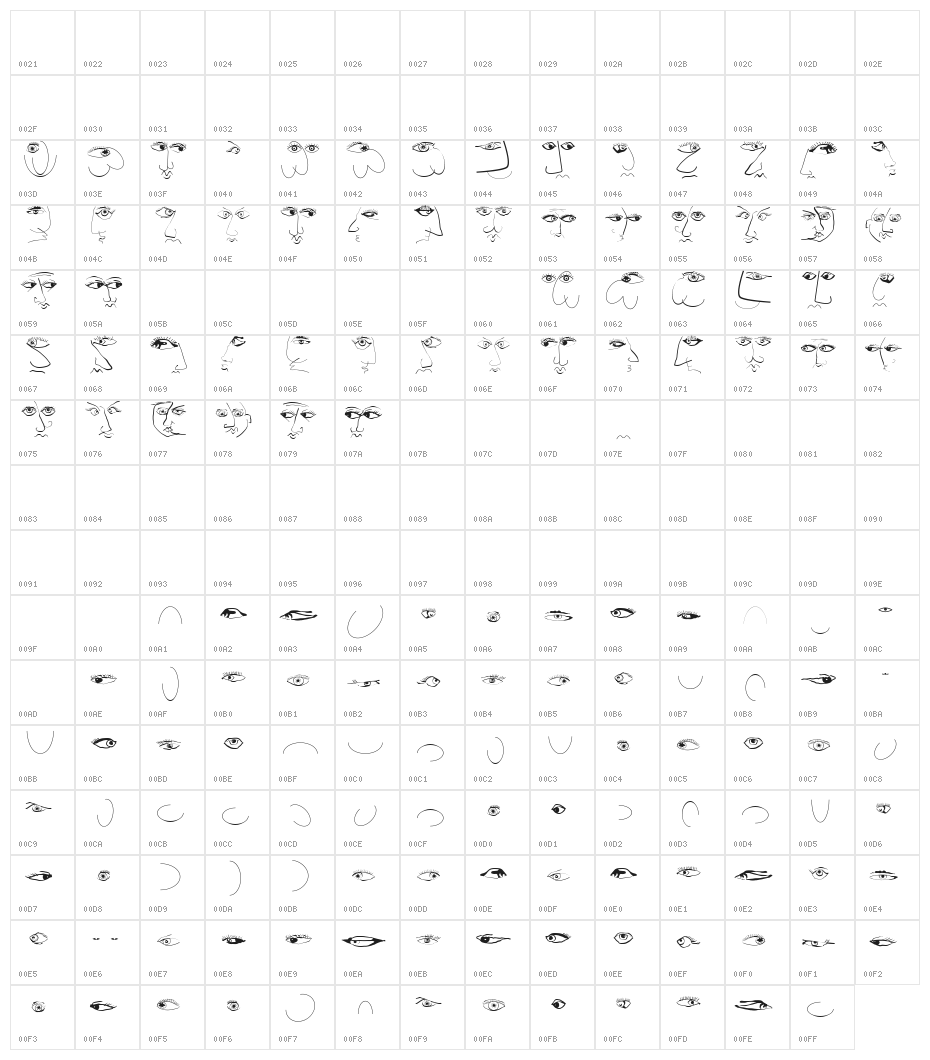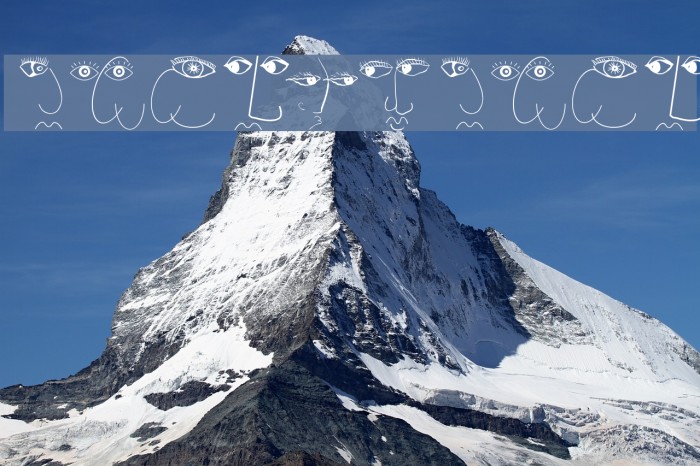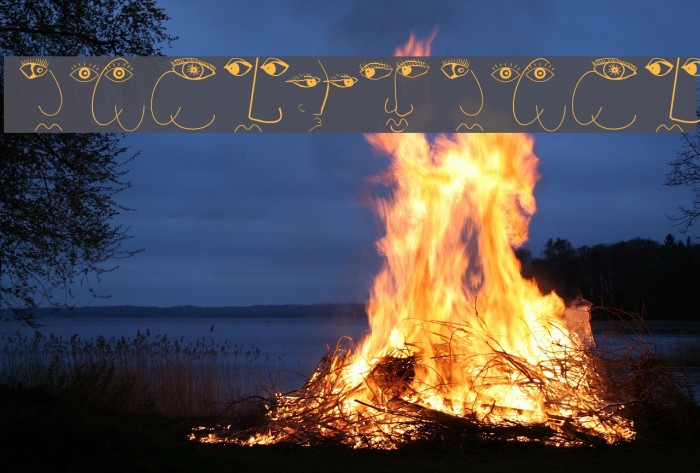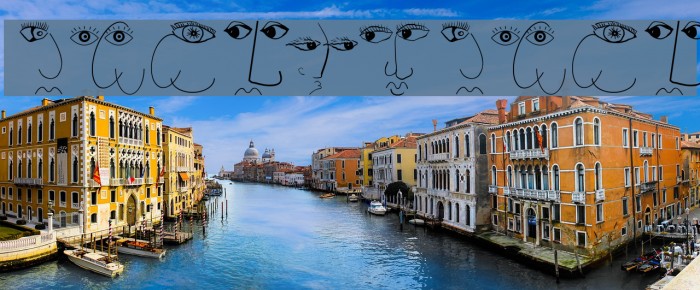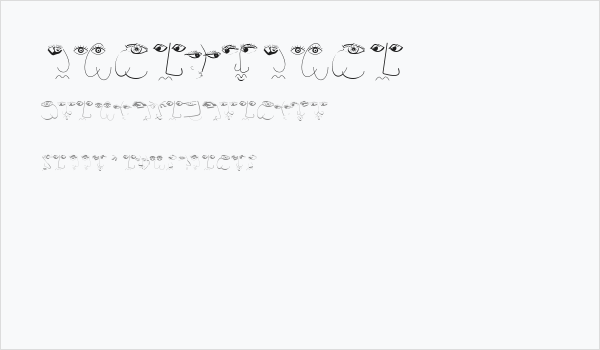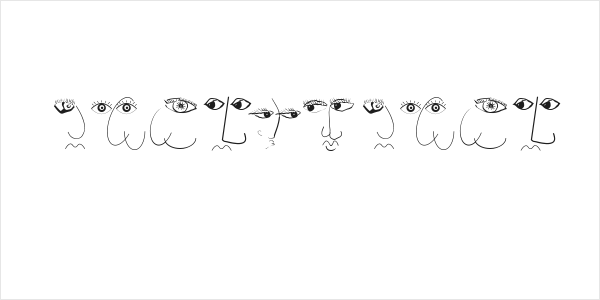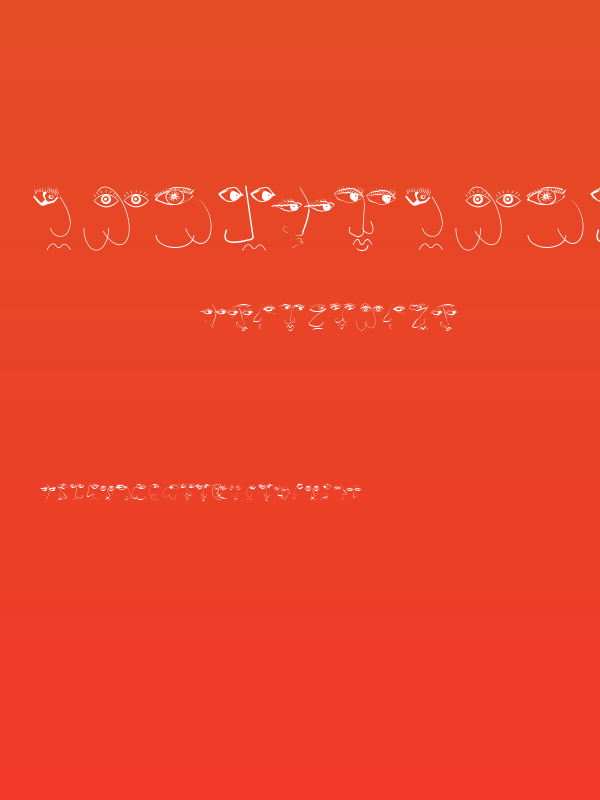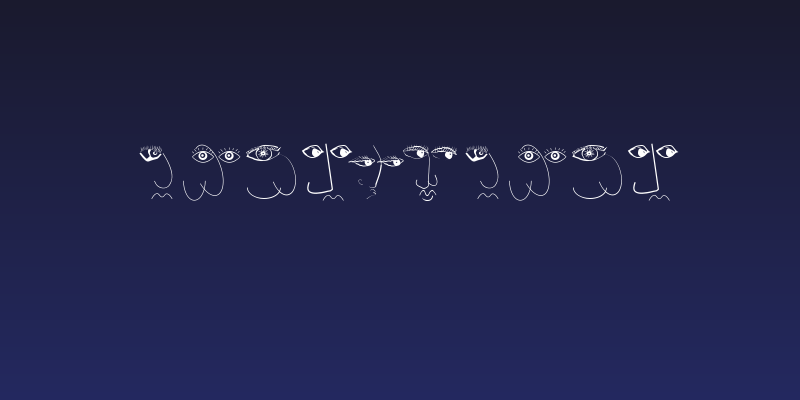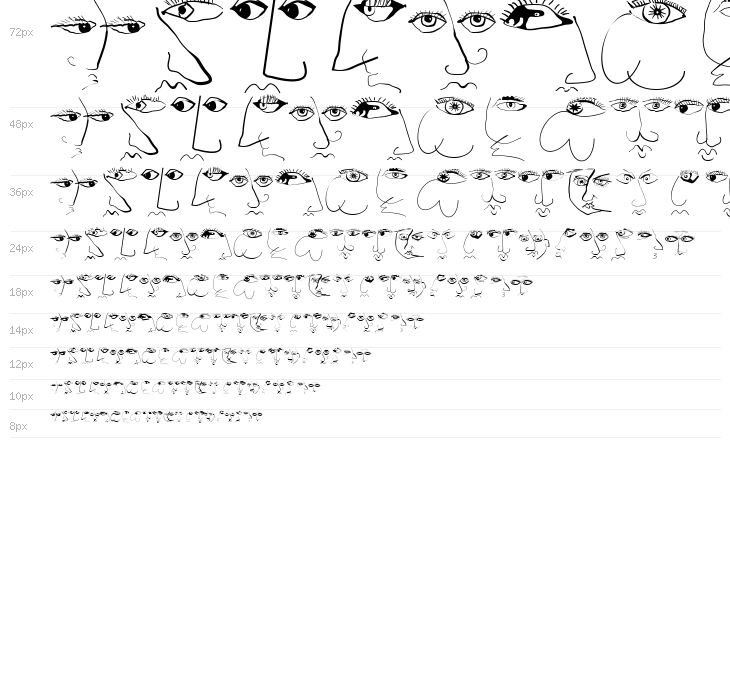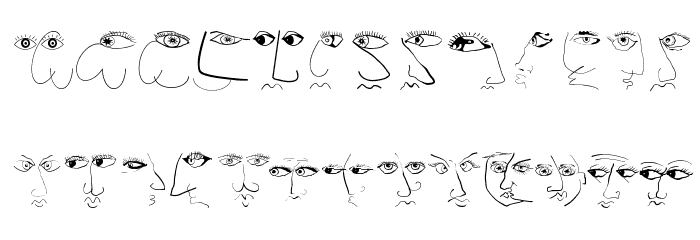
FaceToFace Font
FaceToFace Description
This unique and artistic font features characters designed with abstract facial elements, creating a whimsical and expressive style. Each letter is crafted to resemble a face, incorporating eyes, noses, and mouths in a continuous line drawing style. The playful and imaginative design makes it stand out, offering a creative twist to traditional typography. The font's artistic flair is perfect for projects that require a touch of individuality and creativity. Its distinct appearance makes it suitable for artistic and decorative purposes, where the visual impact is paramount.
| Overall Style | Artistic, Whimsical, Creative |
| Use Case | Logos, Art projects, Decorative text |
| Proposed Projects | Ideal for creative projects such as art posters, album covers, unique branding, and decorative invitations. |